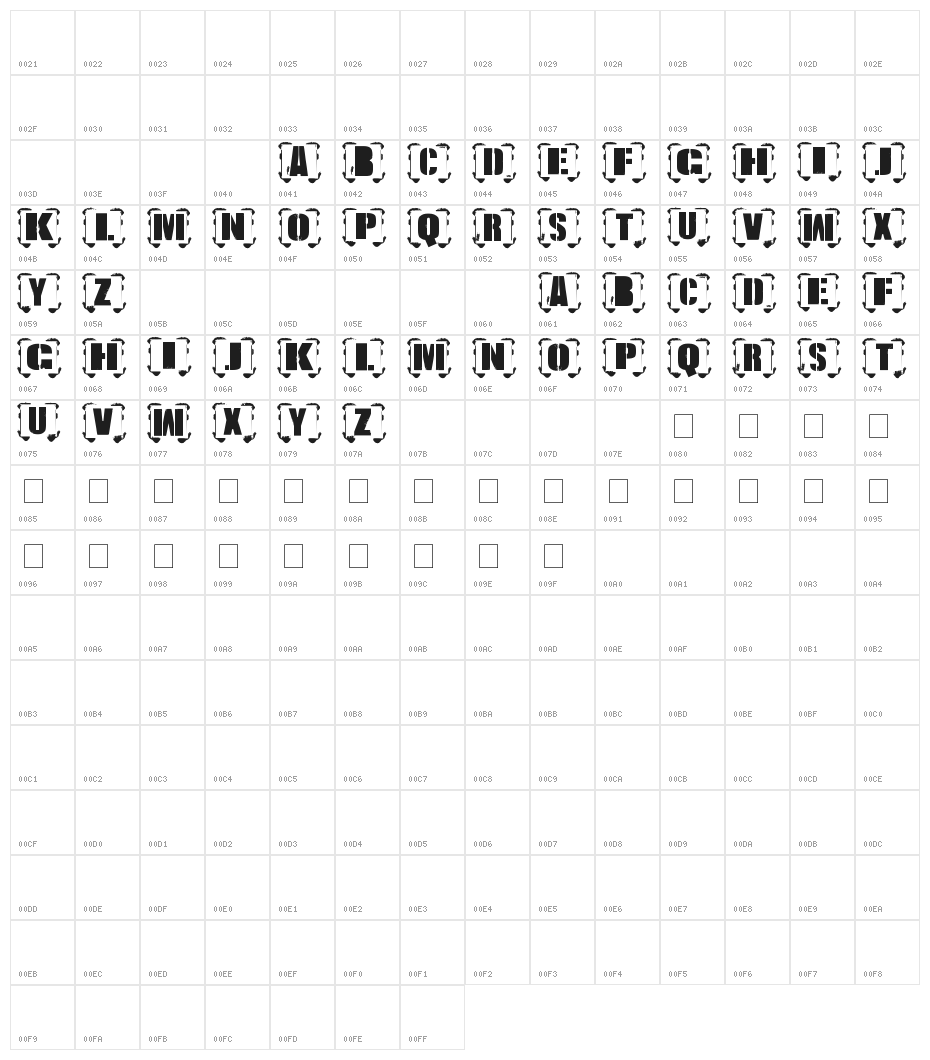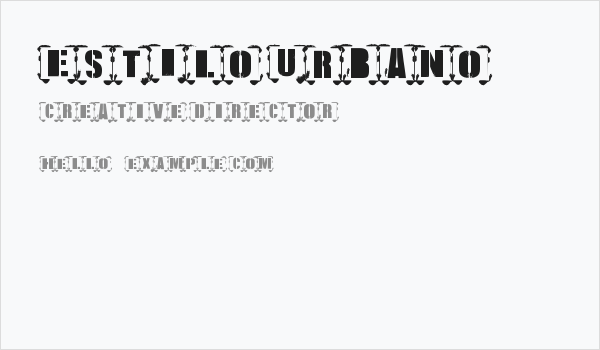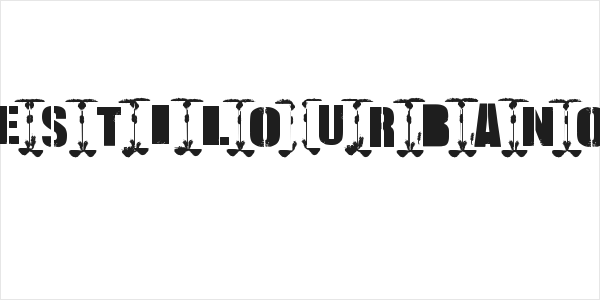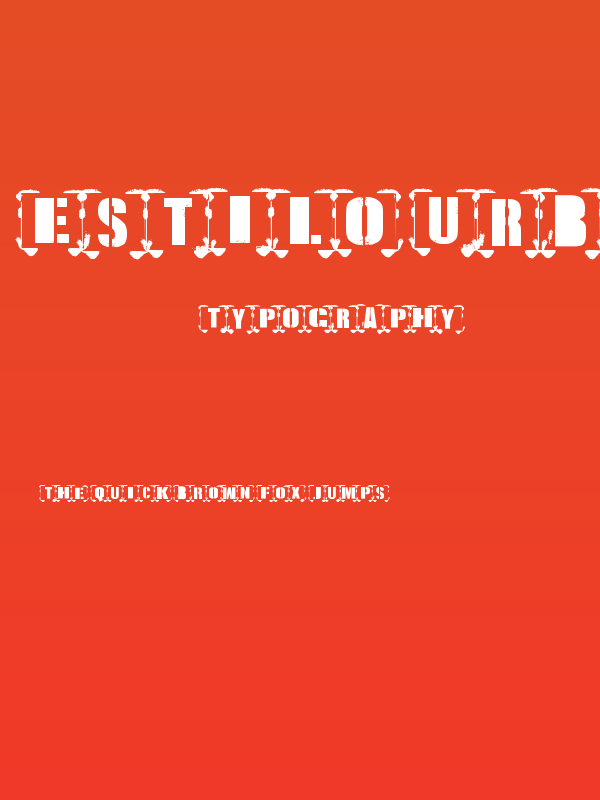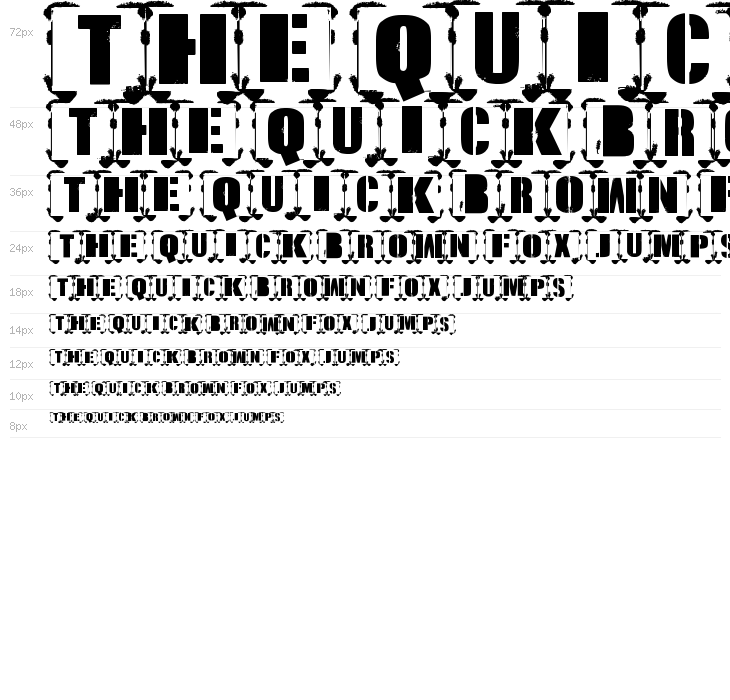
ESTILO URBANO Font
ESTILO URBANO Description
This font features a bold, decorative style with a unique urban flair. Each character is enclosed within a box-like structure, giving it a distinct, graffiti-inspired appearance. The letters are bold and heavily stylized, with intricate details that suggest a sense of movement and energy. The font's design is reminiscent of street art, making it ideal for projects that aim to capture an edgy, modern aesthetic. Its bold presence ensures that it stands out in any design, making it perfect for eye-catching headlines or logos.
| Overall Style | Urban, Modern, Decorative |
| Proposed Projects | Ideal for street art-themed designs, urban branding, edgy posters, and modern logos. |